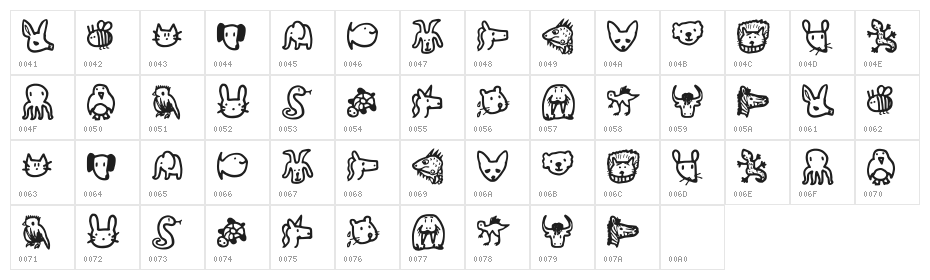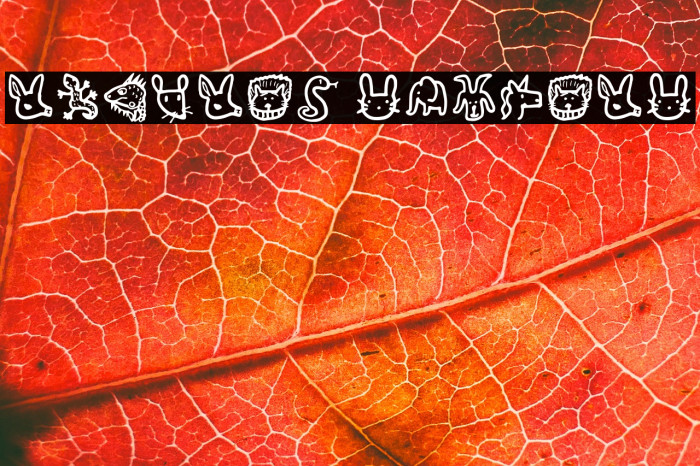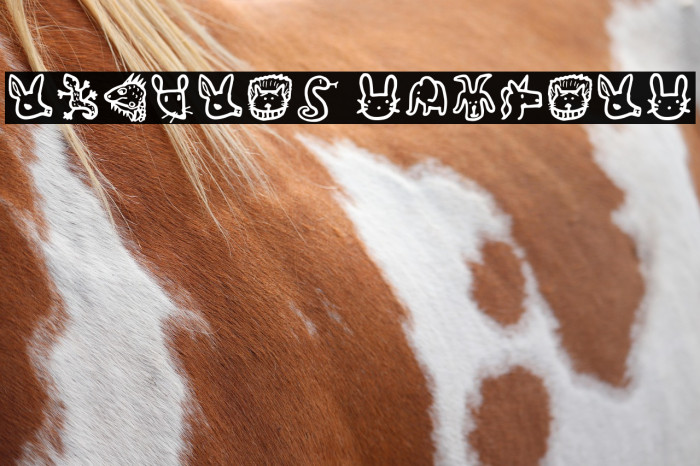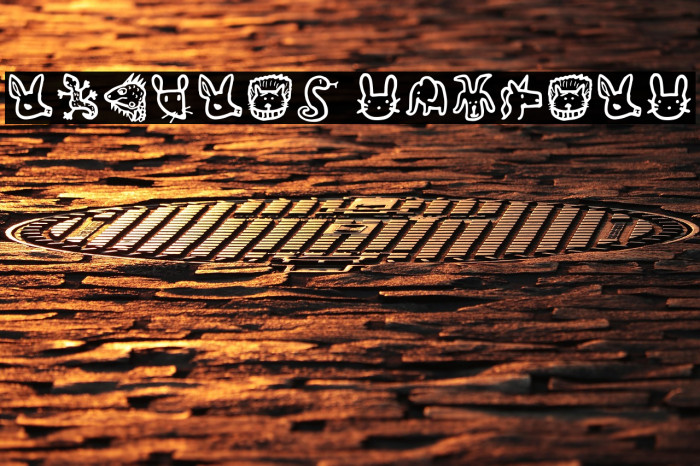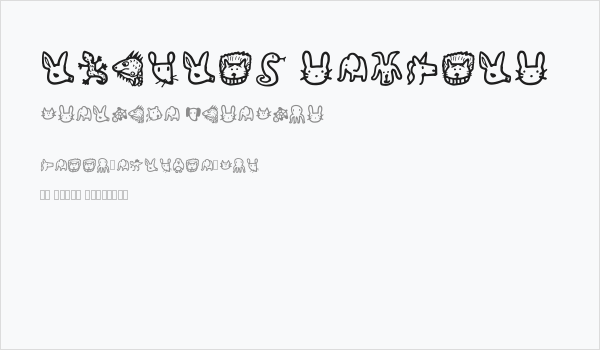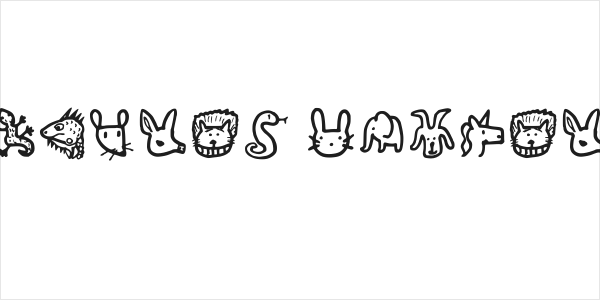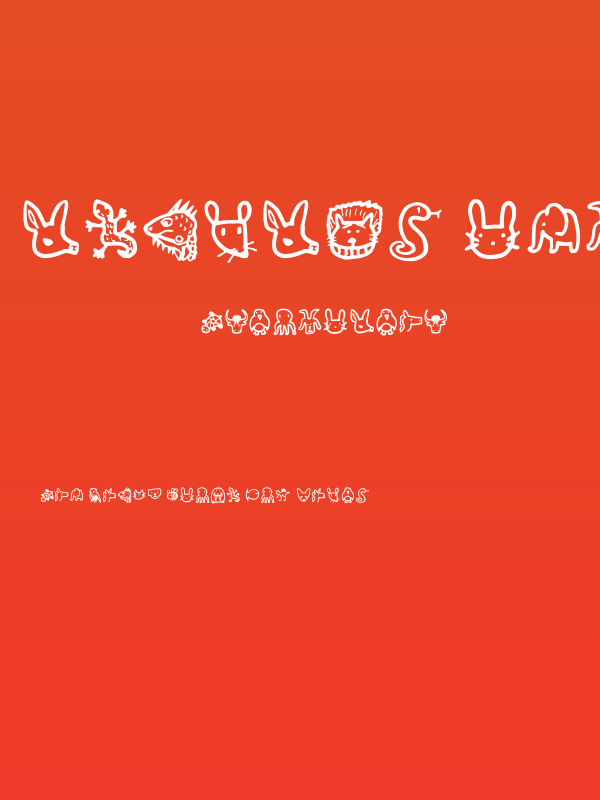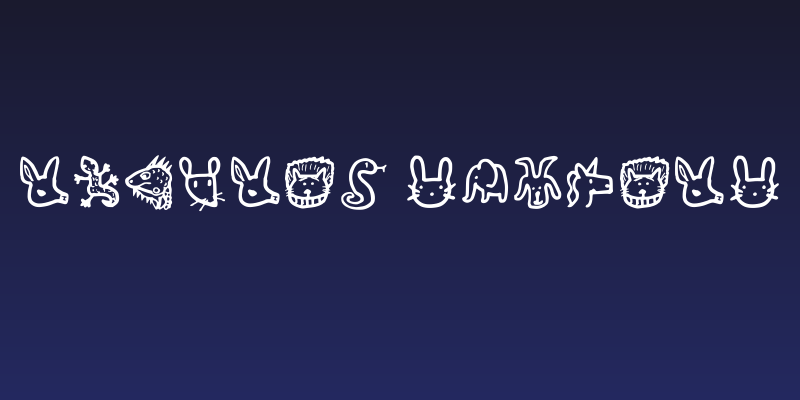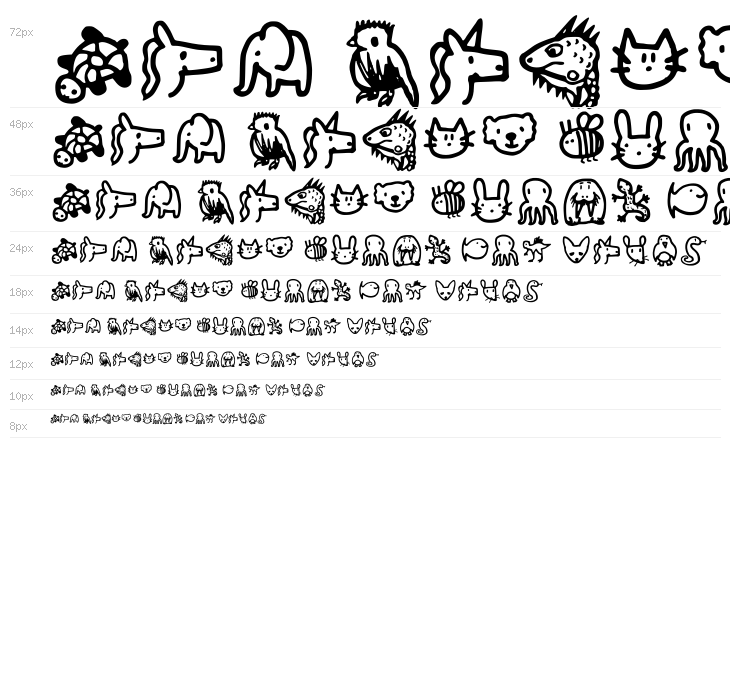
Animals Regular Font
Animals Regular Description
This font features a whimsical collection of animal illustrations, each character representing a different creature. The style is playful and cartoonish, with bold outlines and simple, expressive details that give each animal a unique personality. The characters are evenly spaced, making them easy to distinguish from one another. This font is perfect for projects that require a fun and lighthearted touch, such as children's books, educational materials, or playful branding. The consistent line weight and clear forms ensure readability while maintaining a charming aesthetic.
| Overall Style | Playful, Cartoonish |
| Use Case | Logos, Decorative elements, Children's materials |
| Proposed Projects | Ideal for children's books, educational materials, playful branding, and creative design projects. |